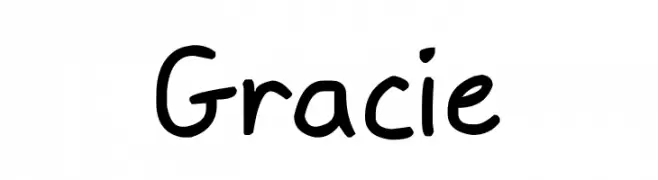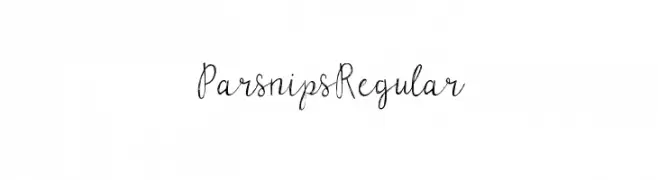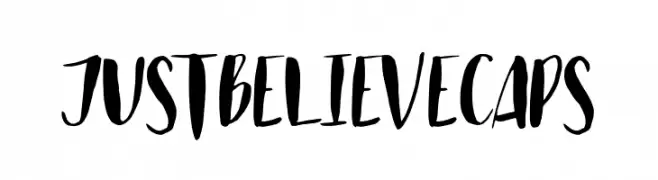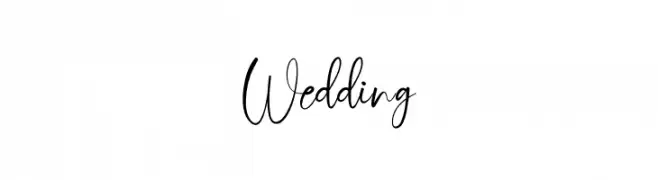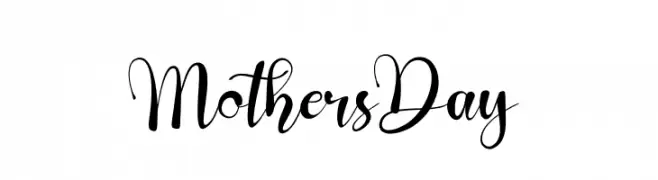
A playful, informal handwritten font with rounded, consistent strokes.
A whimsical, handwritten font with playful, slender strokes and an organic feel.
A bold, expressive handwritten font with playful curves and modern flair.
A bold, expressive handwritten font with dynamic letterforms.
A bold, expressive brush script font with a hand-painted look.
A bold, expressive script font with fluid, interconnected strokes.
A bold, handwritten font with a modern, brush-like style.
A bold, expressive handwritten font with fluid strokes.
An elegant and flowing script font with graceful curves and a sophisticated style.
A graceful and elegant script font with flowing, cursive letterforms and ornate flourishes.